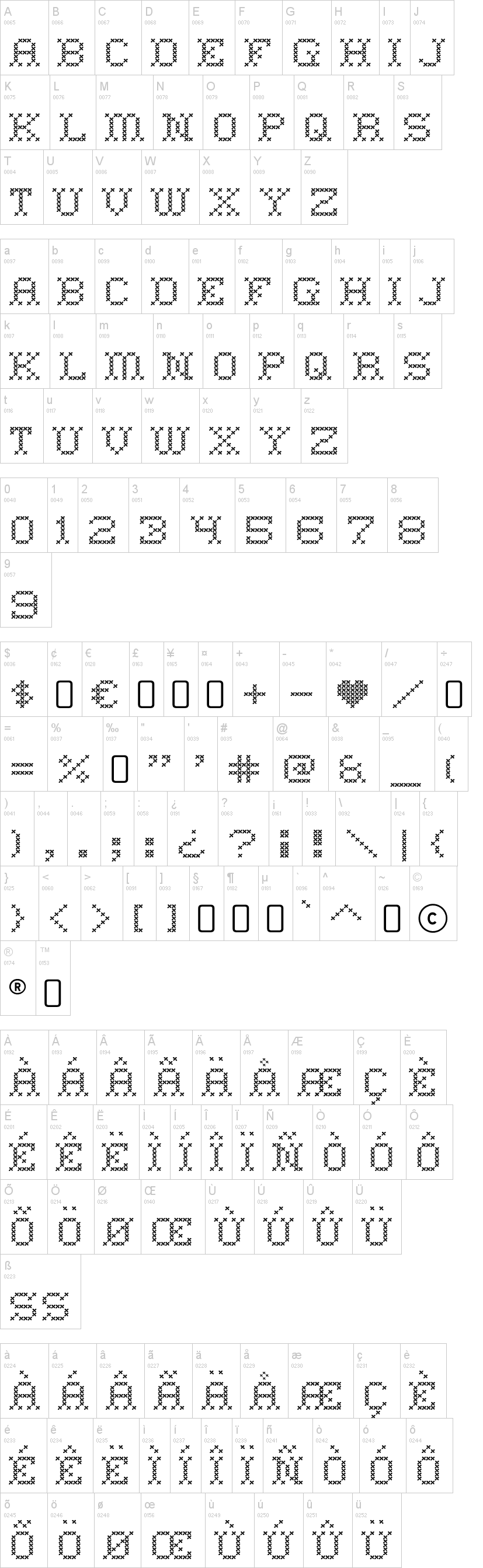
Шрифт Home Sweet Home
Home Sweet Home is a sentimental, saccharine cross-stitch font. Don't forget to read the files inside the zip for details. Updated in 2012.